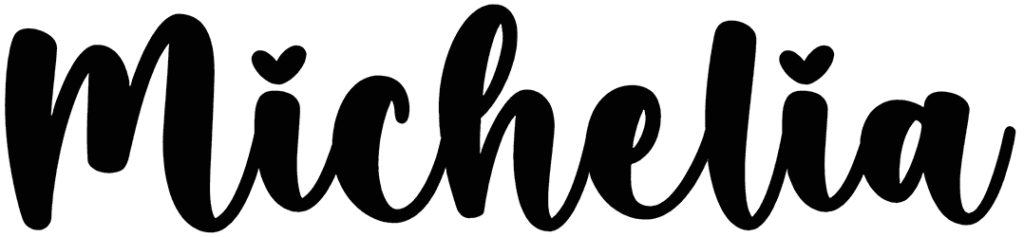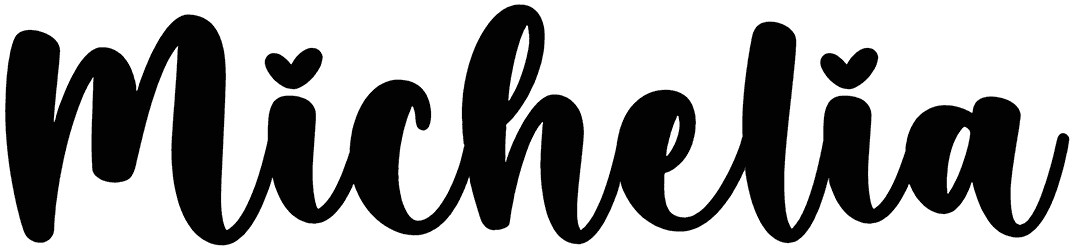
Michelia Font
It would be a huge mistake to miss such a romantic font like Michelia, especially if Valentine’s Day, Mother’s Day, or even a birthday is coming up. That cute style makes your words sound even more heart-warming when they look like that.
With a cursive heart font like this at hand, it won’t take you more than a couple of minutes to handle the typography in your posters, gift wrapping paper, or invitations for anniversaries, Teacher’s Day, or such occasions.